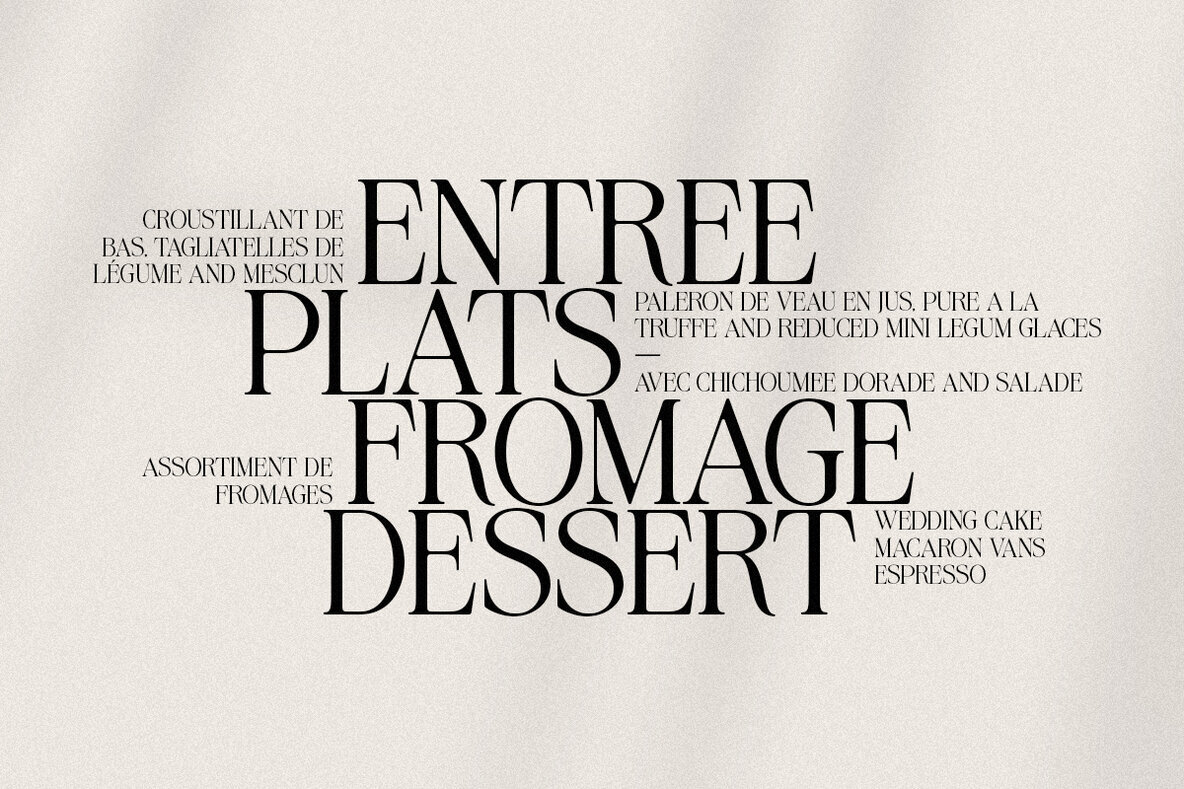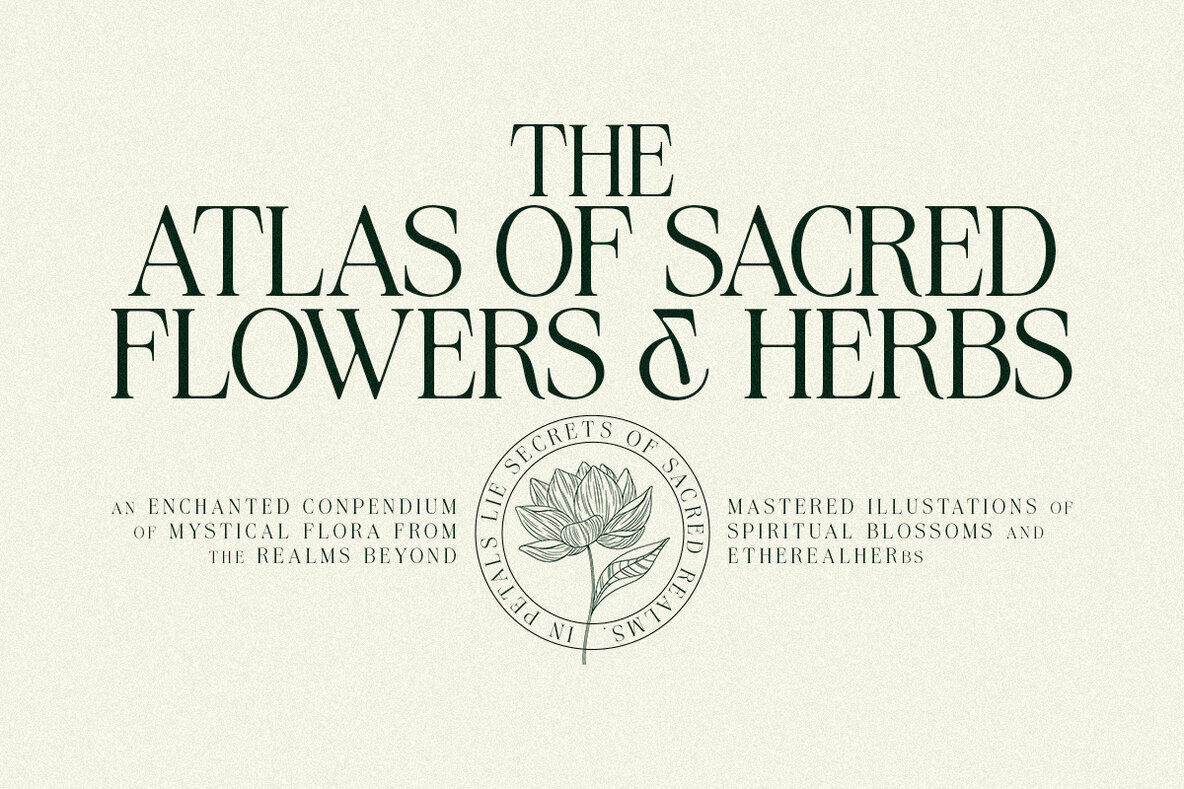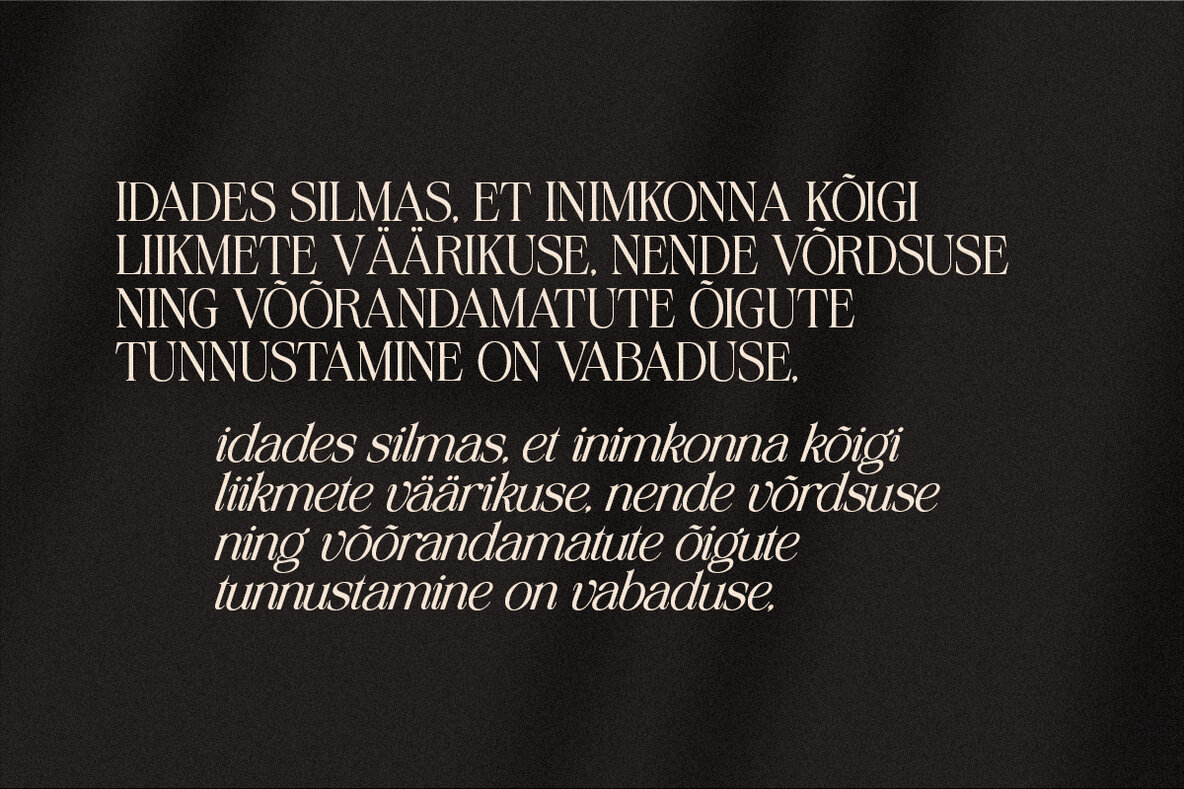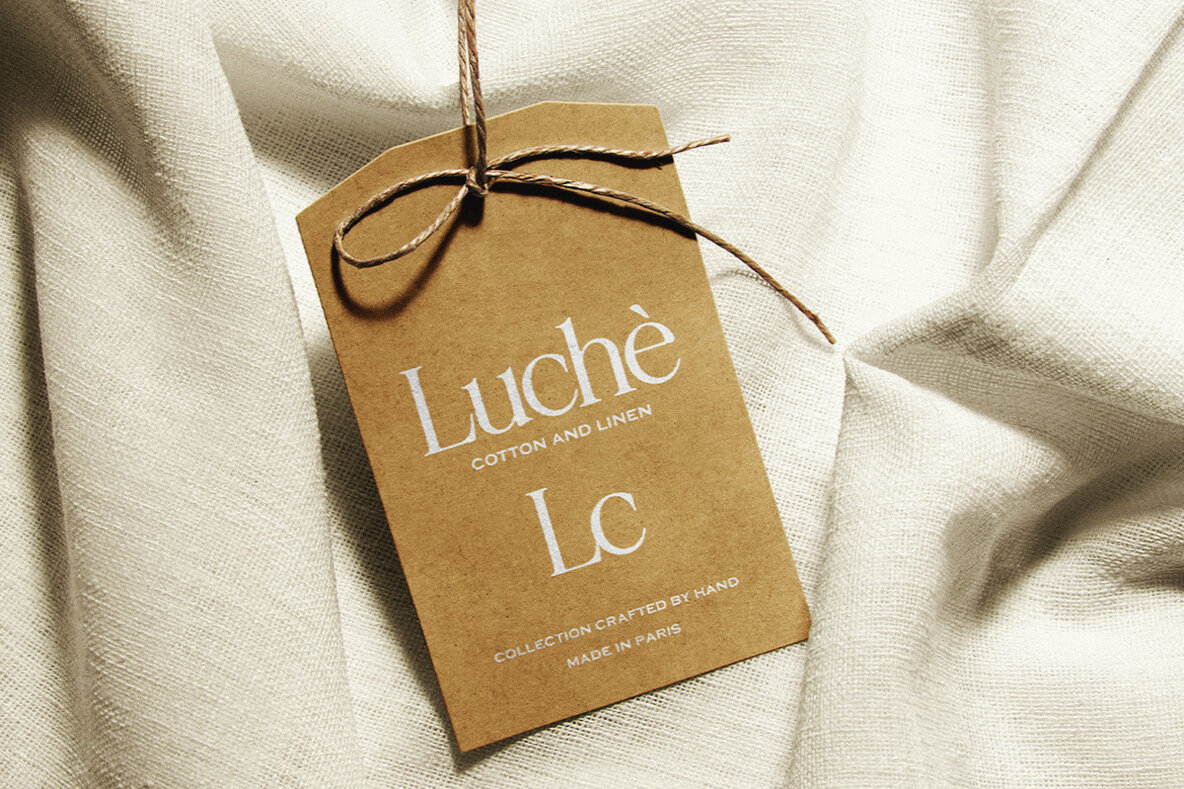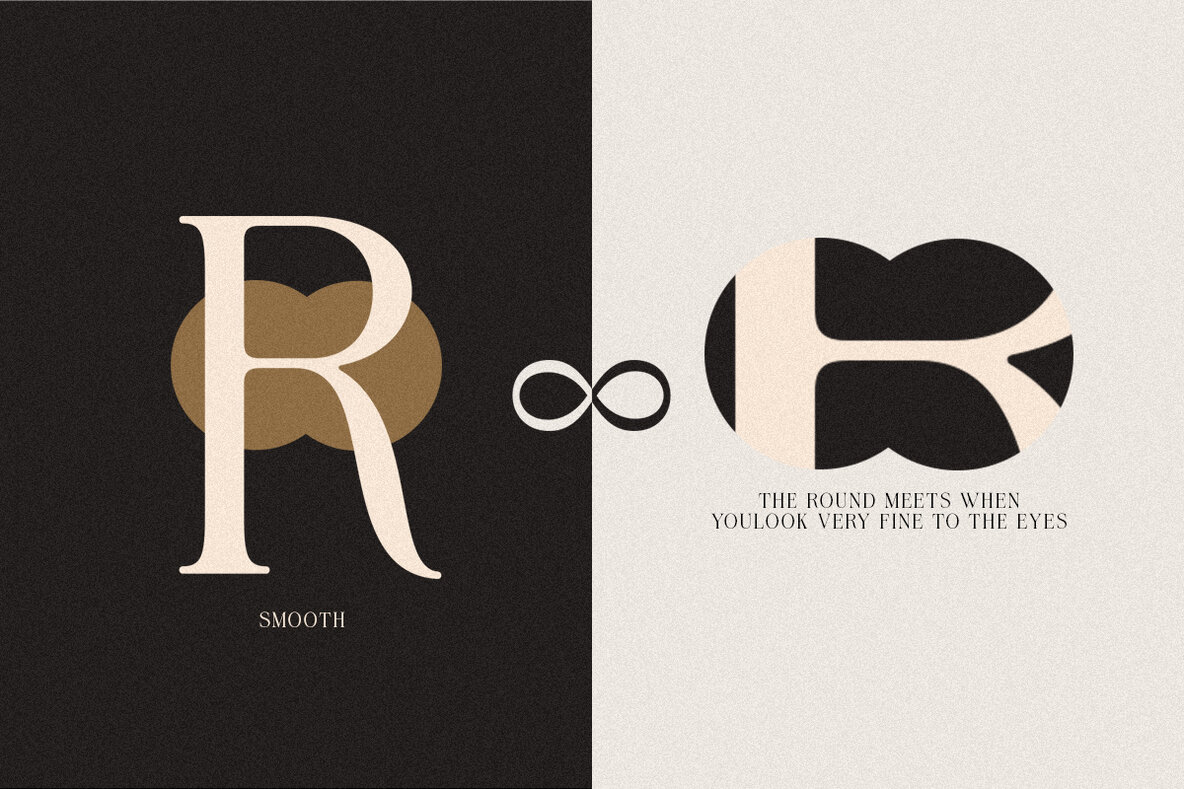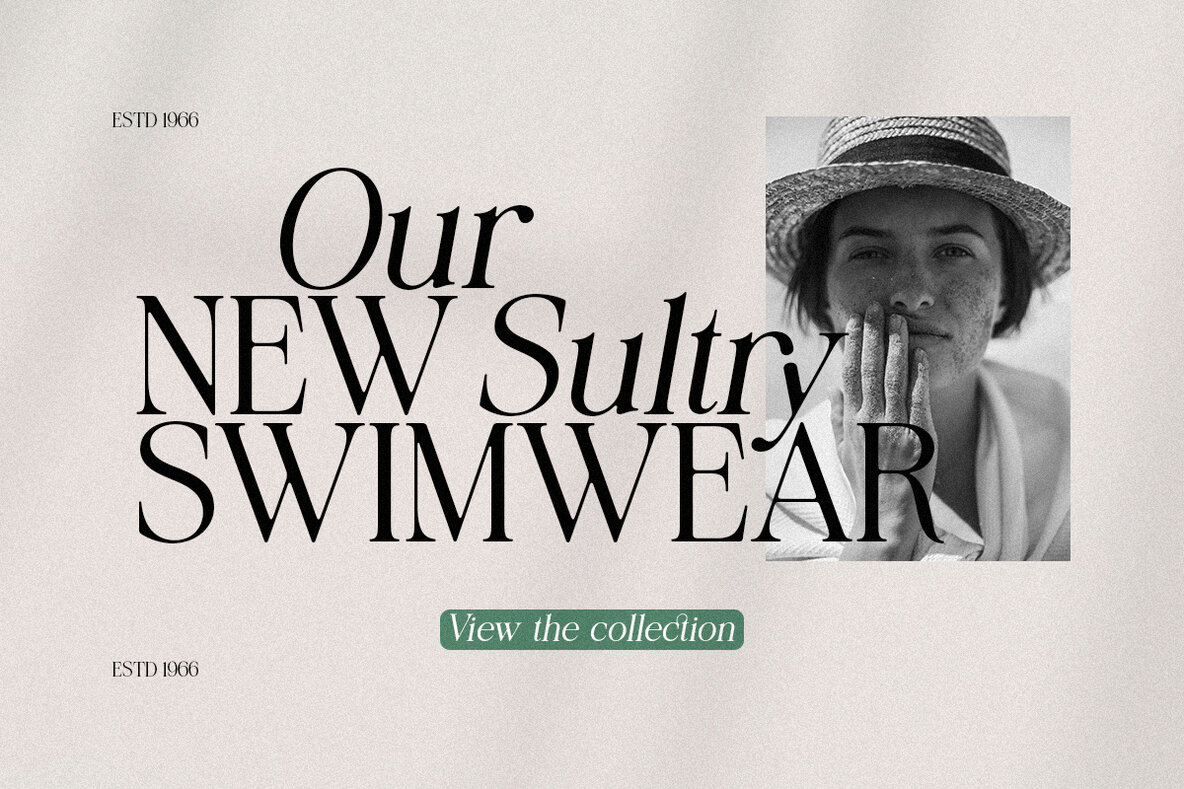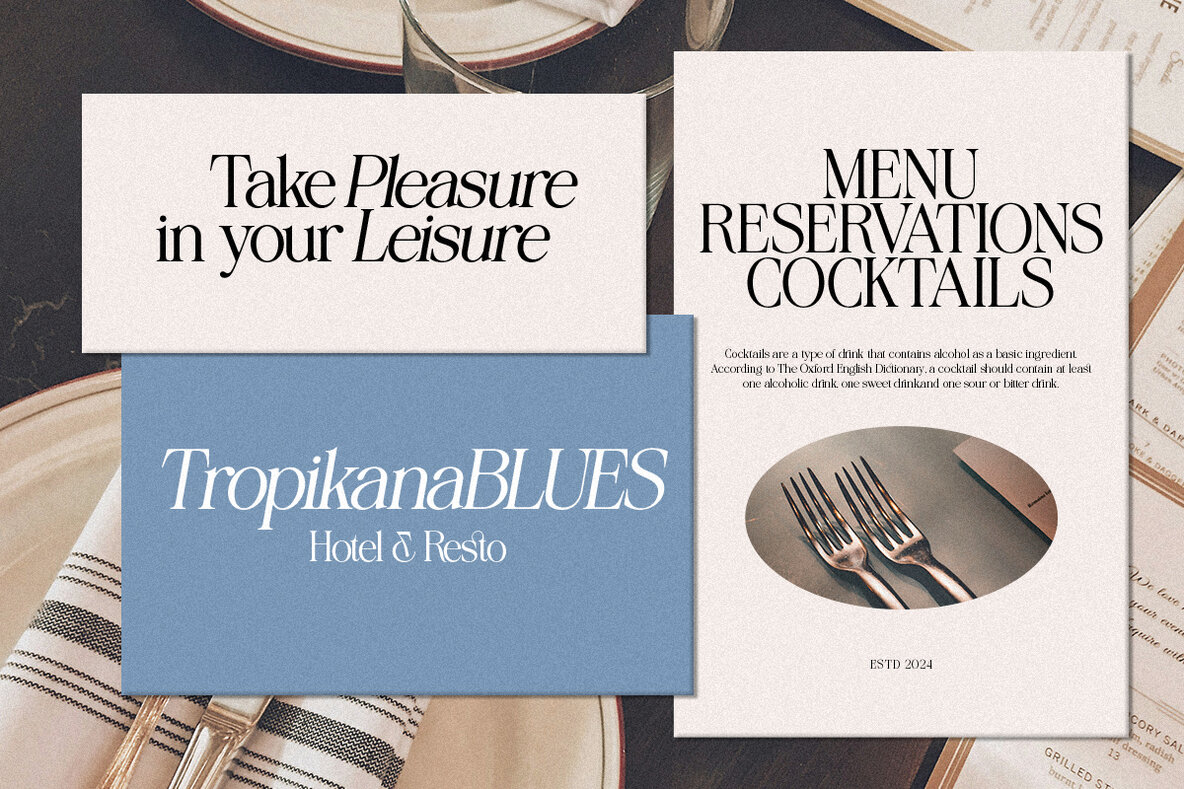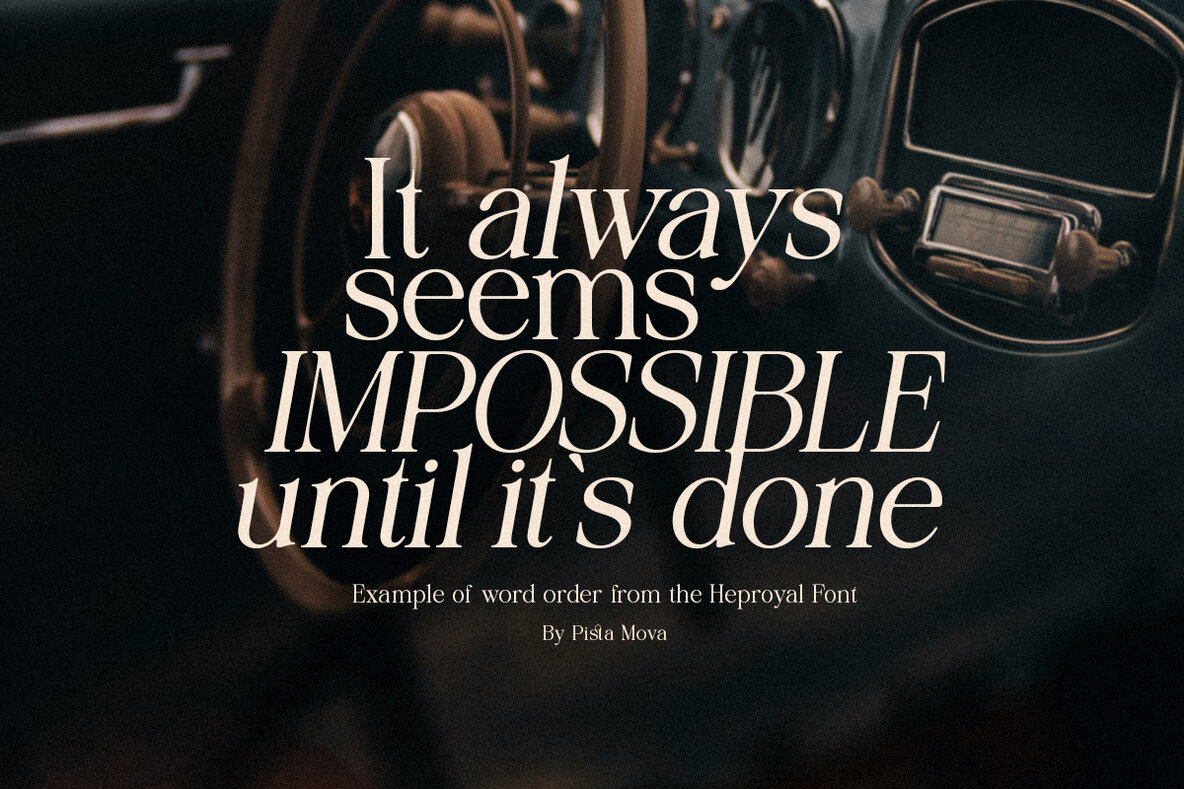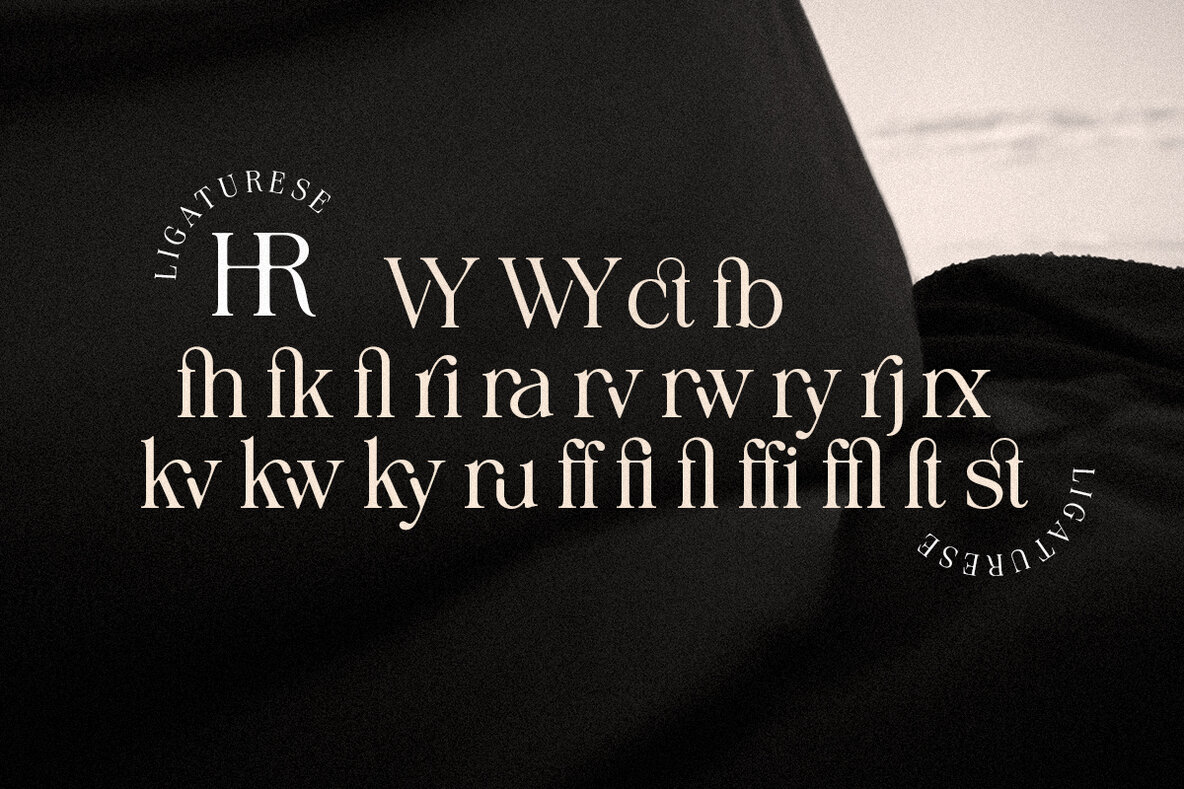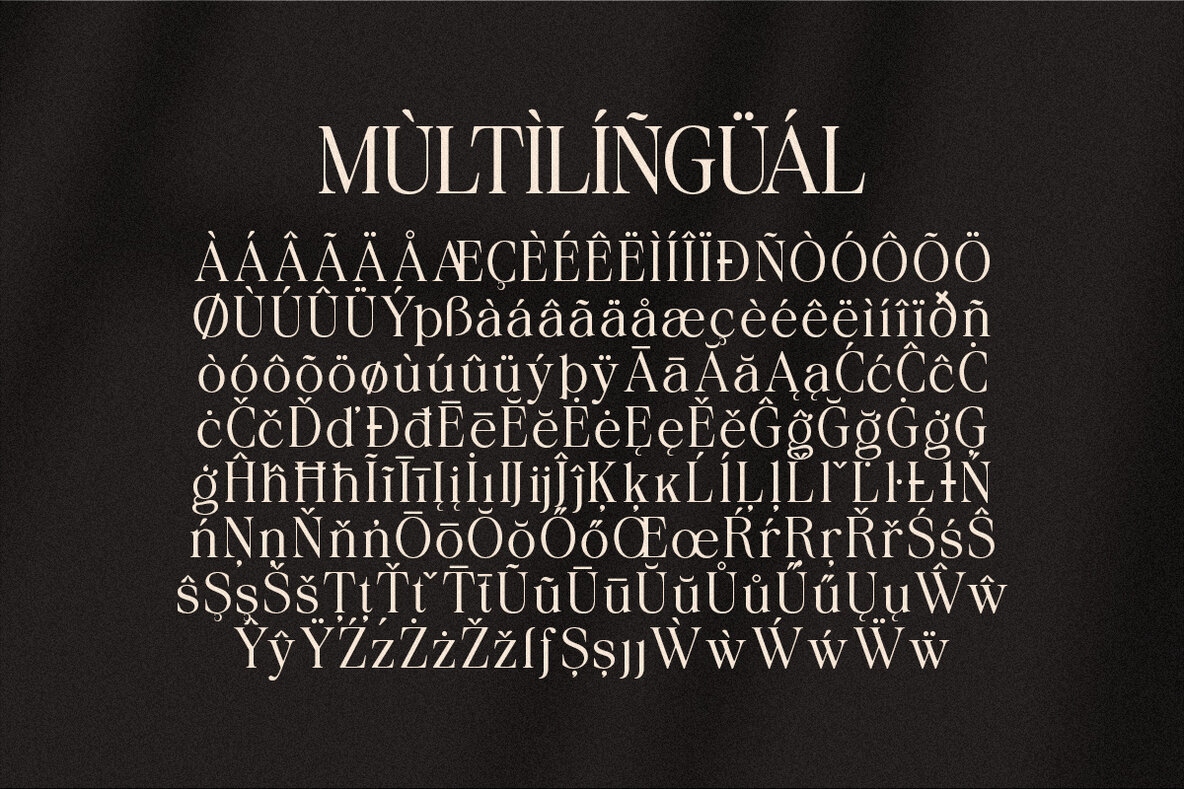
Heproyal Font
Heproyal is a refined and elegant serif typeface perfect for a range of high-end design projects. Its soft and sophisticated style makes it ideal for branding and logo designs, adding a touch of class and modernity. Whether you’re working on wedding designs, social media posts, or advertisements, Heproyal's clean lines and chic aesthetic ensure your creations stand out. It is also suitable for product packaging, invitations, photography watermarks, and stationery, providing a high level of legibility and visual appeal across all mediums.
The font includes both regular and slant versions, with comprehensive character sets that include numbers, punctuation, and accented characters for Western European languages. Heproyal is fully accessible in popular design software like Adobe Illustrator, Adobe Photoshop, CorelDRAW, and even Microsoft Word. It also features PUA encoded characters, allowing you to use all glyphs without the need for additional design tools. Please note: images in the preview are not included, they serve illustrative purposes only.